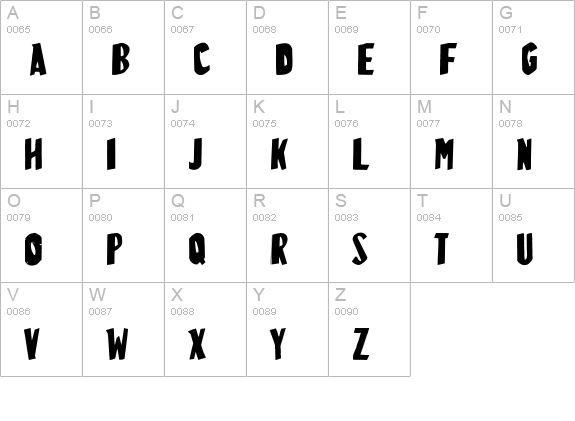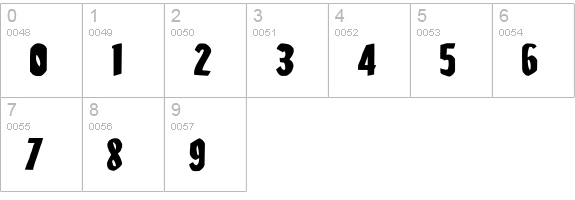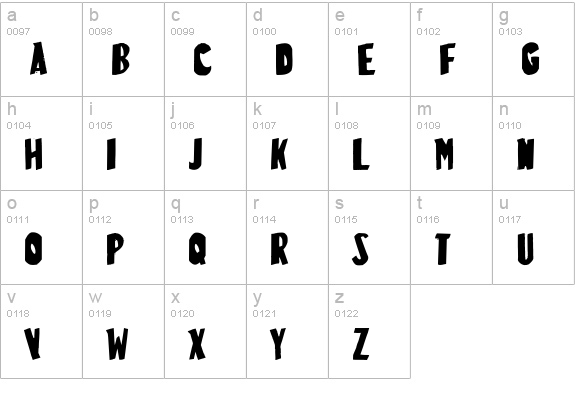
LuchitaPayol-LaRuda Font Details
LuchitaPayol-LaRuda font is a unique and eye-catching typeface that combines elegance with a touch of playfulness. Its intricate design features sharp angles and flowing curves, making it perfect for a wide range of design projects. This font exudes a sense of sophistication and creativity, making it ideal for logos, branding, posters, and more. What sets LuchitaPayol-LaRuda font apart is that it is available for free download at FontsMarket.com. This means that designers and creatives can easily access this stunning font without any cost, allowing them to unleash their creativity without any limitations. With its bold and distinctive look, LuchitaPayol-LaRuda font is sure to make a statement in any design project. Download it today and elevate your designs to the next level!